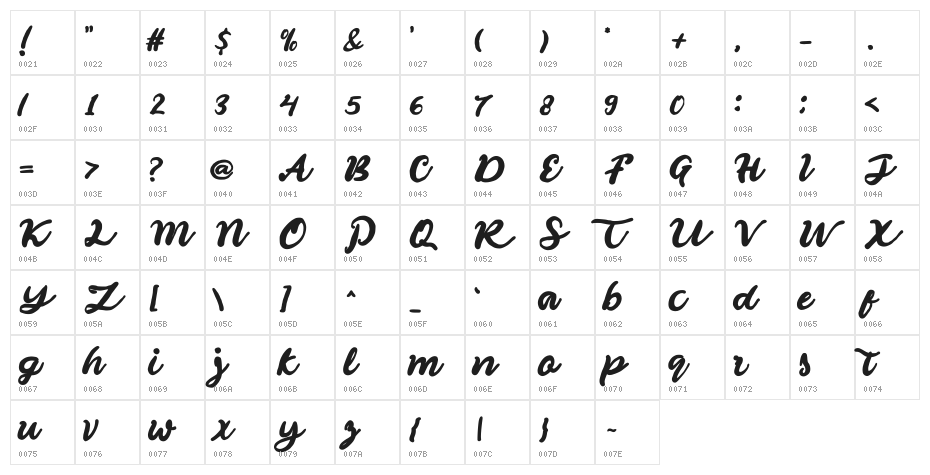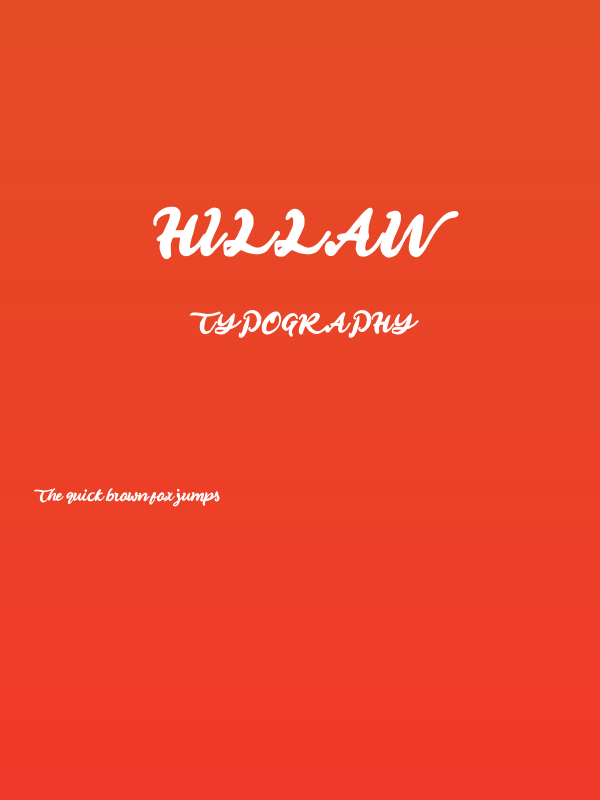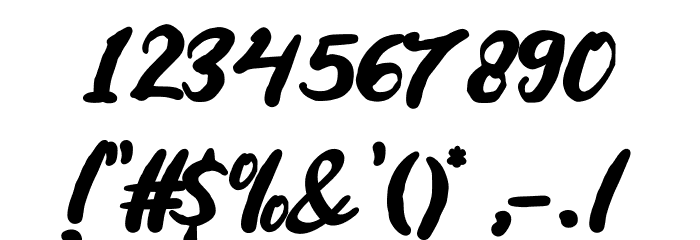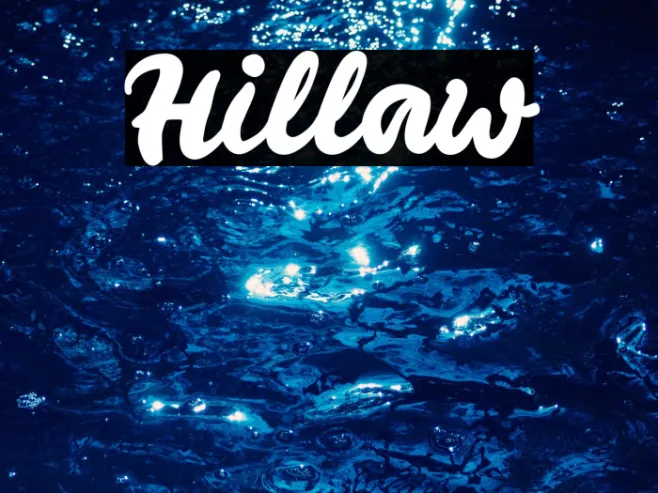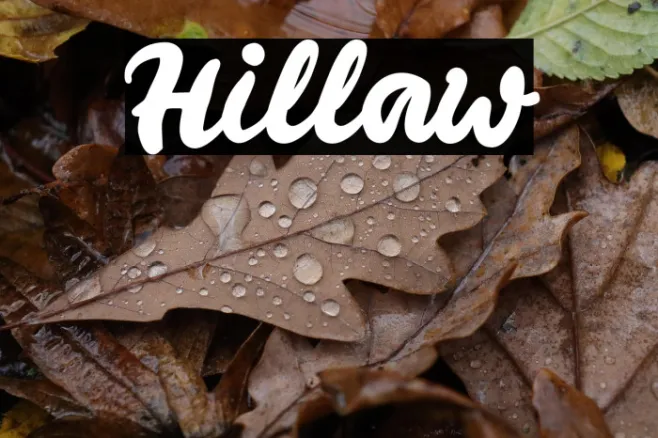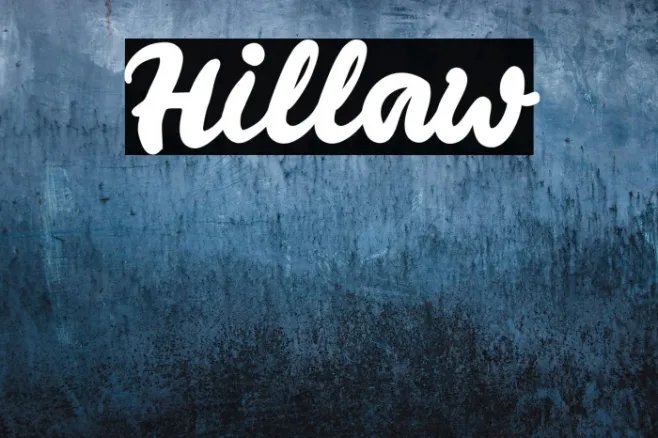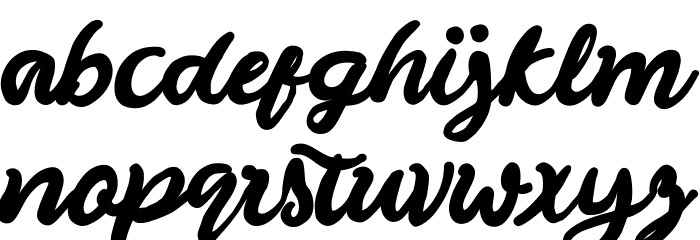
Hillaw Font
Hillaw Description
This font features a bold and expressive script style, characterized by its fluid and connected letterforms. The strokes are thick and dynamic, giving it a lively and energetic appearance. The uppercase letters are elegantly curved, while the lowercase letters maintain a consistent flow, enhancing readability. The numerals are distinct and bold, matching the overall style of the alphabet. Special characters are creatively integrated, maintaining the font's cohesive look. This font is ideal for projects that require a personal touch or a sense of movement and creativity.
| Proposed Projects | Ideal for branding, invitations, greeting cards, and creative headlines. |